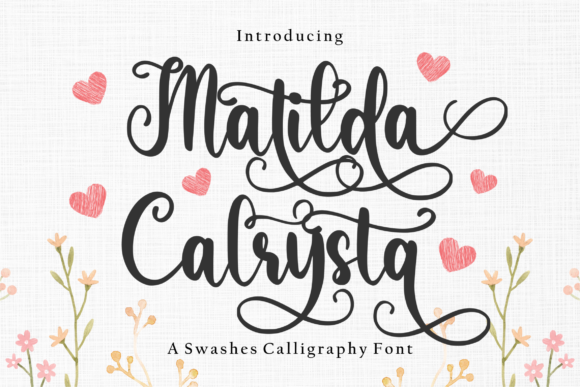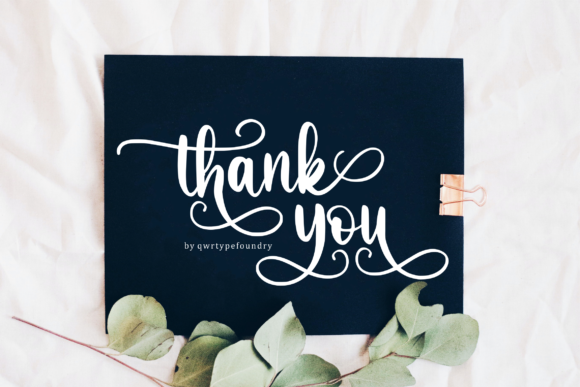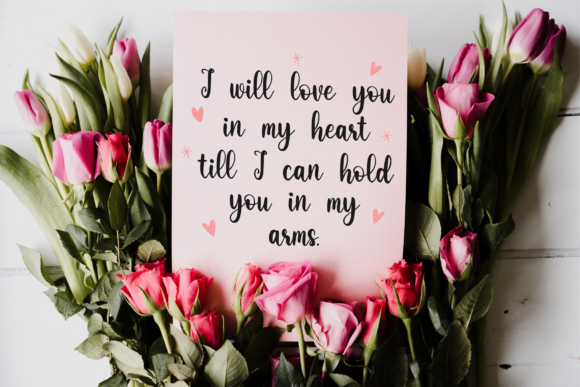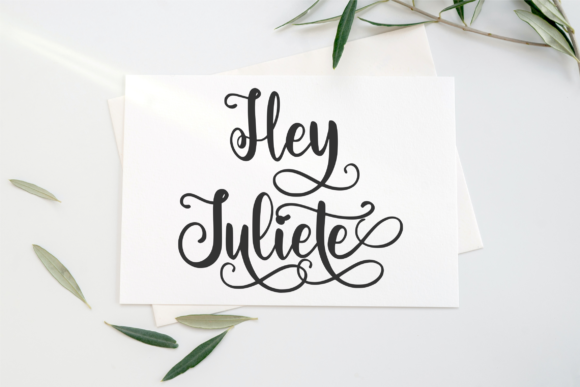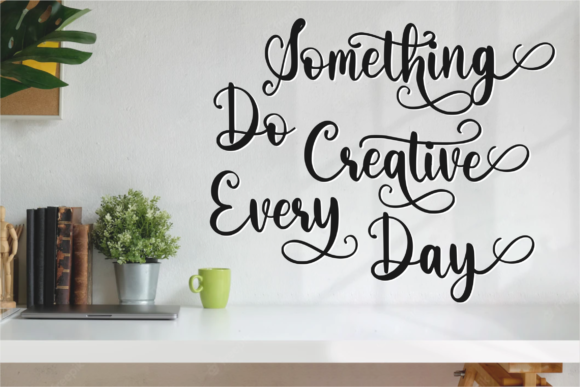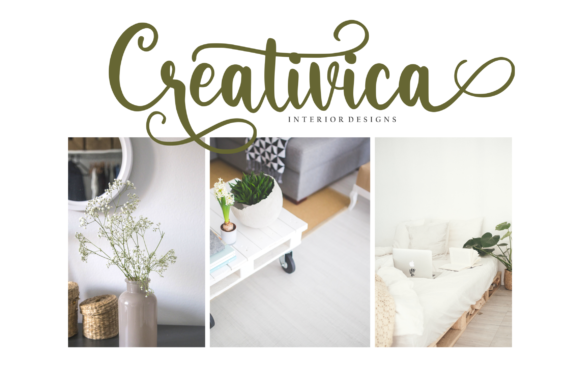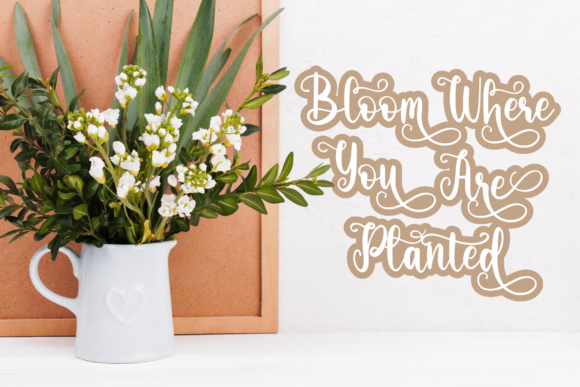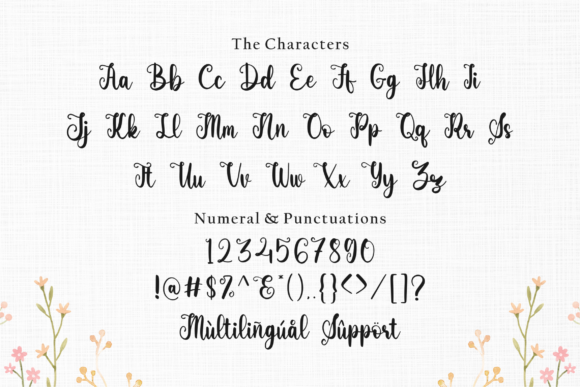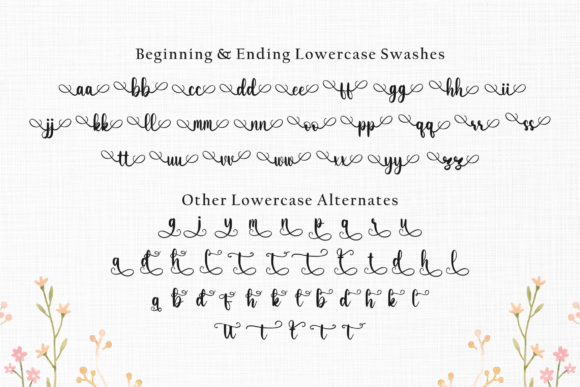
Matilda Calrysta Font
About Matilda Calrysta Font
Matilda Calrysta, a cute swash calligraphy font, brings a delightful touch to your designs with its smooth curves and a wonderful dancing baseline. Boasting tons of character, this font is a perfect choice for various design projects that require an elegant and natural style. Its versatility makes it suitable for invitations, greeting cards, promotional materials, websites, and branding where a charming and sophisticated look is desired.
The font’s cute swash calligraphy style adds a playful yet elegant element to your text. The smooth curves contribute to a flowing and graceful appearance, making Matilda Calrysta an ideal option for projects that aim to convey a sense of warmth and creativity.
Matilda Calrysta’s PUA encoding ensures easy access to its amazing glyphs and ligatures, allowing designers to incorporate unique and decorative elements seamlessly. This feature enhances the font’s usability, providing creative freedom for customization and personalization.
In summary, Matilda Calrysta is more than just a font; it’s a cute swash calligraphy typeface that brings a touch of charm and elegance to your designs. Whether used for invitations, greeting cards, websites, or branding, its smooth curves and dancing baseline make it a delightful choice for projects that require a natural and sophisticated style. With PUA encoding, Matilda Calrysta offers both elegance and accessibility, making it a valuable asset for designers seeking to infuse character into their creative work.